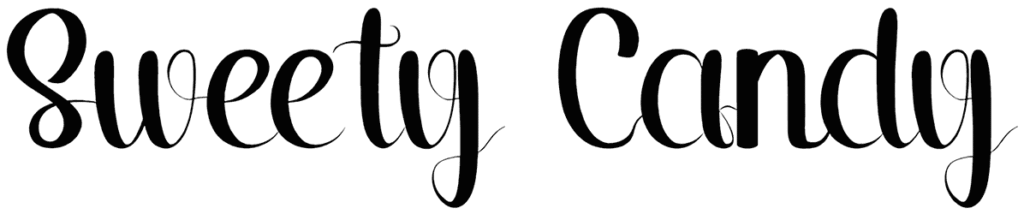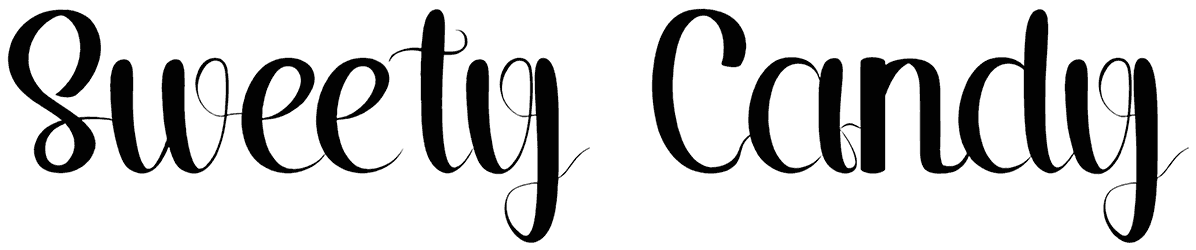
Sweety Candy Font
Choosing an option that can match any design can be very effective in your designs, and this romantic font is a great one. Sweety Candy font has a modern, curvy hand-lettering form and conveys a realistic vibe. You can try Sweety Candy for your intended designs, like Instagram quotes, planners, packaging, and so forth, and give them an adorable mood.